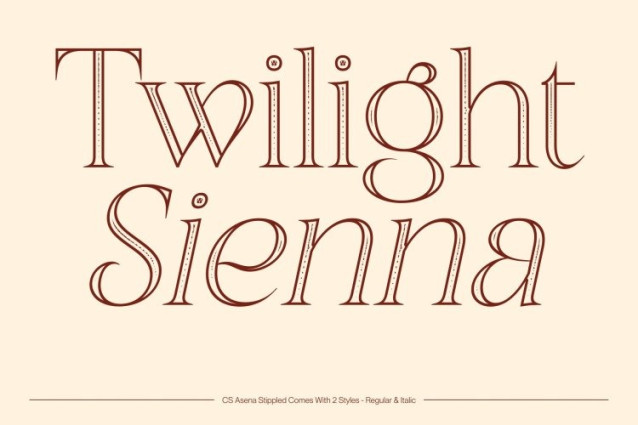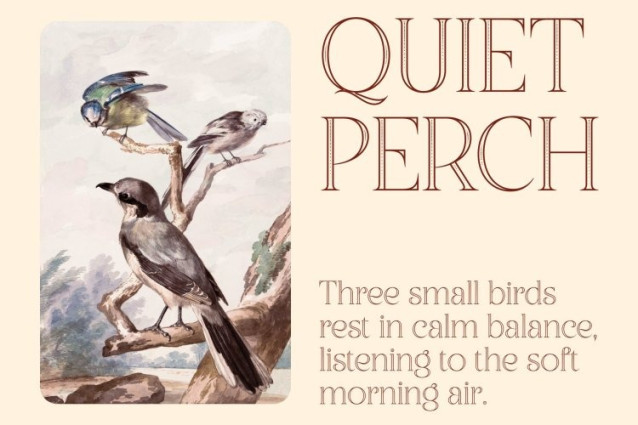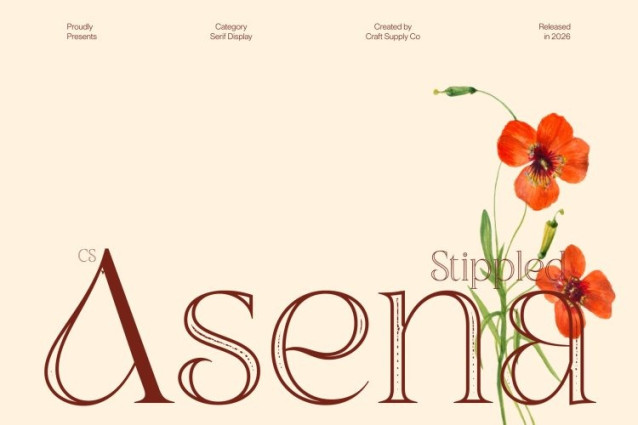
CS Asena Stippled Font
CS Asena Stippled Font This is an elegant serif font that combines high-end sophistication with handcrafted stippled detailing. Inspired by traditional ink-dot and stippling illustration techniques, the dense dotwork texture adds depth, richness, and a classic artisanal touch, enhancing the graceful curves and refined letterforms while preserving clarity and readability.
Fluid Curves with Textured Art Nouveau Influence
Drawing from the organic flow of Art Nouveau, each letter features soft, harmonious curves enriched by the stippled surface. The textured detailing accentuates the natural rhythm and decorative elegance of the font, creating a visually rich and expressive typographic voice. It feels both ornamental and controlled, adding movement and sophistication to every composition.
Timeless Elegance Meets Modern Relevance
This font bridges classic typographic tradition with contemporary refinement. Its elegant serifs, sculpted contours, and textured detailing provide a luxurious foundation for premium designs while ensuring versatility across modern editorial layouts, branding, and display use.
Perfect for High-End Editorial, Fashion, and Branding Projects
Ideal for book design, magazine layouts, luxury packaging, fashion campaigns, and upscale branding, this font delivers artistic sophistication with visual authority. The stippled detailing adds a subtle handcrafted character, giving every headline, logo, or typographic composition a distinguished and timeless appeal.